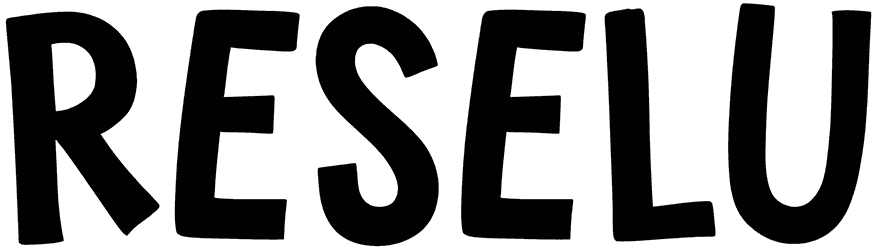
Reselu Font
If you’re having this feeling that the letters of the Reselu font aren’t exactly sitting upright, that’s simply because they aren’t. That’s why everything feels so energetic; it can’t even stay put.
But don’t worry. It doesn’t interfere with the readability; if anything, it makes your words even easier to notice. So, no wonder this kindergarten font turns out to be such a great match for the playfulness required in your pool party posters, summer designs, kids’ animation logos, and so much more.